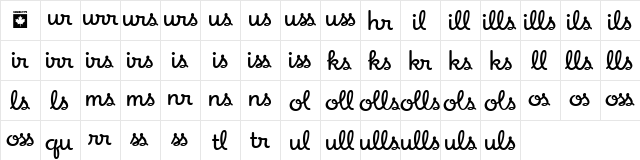
Apricot - Ligatures Two Regular
Apricot - Ligatures Two takes a measured approach to typography — its balanced proportions and neutral character make it a reliable workhorse for both digital and print work.